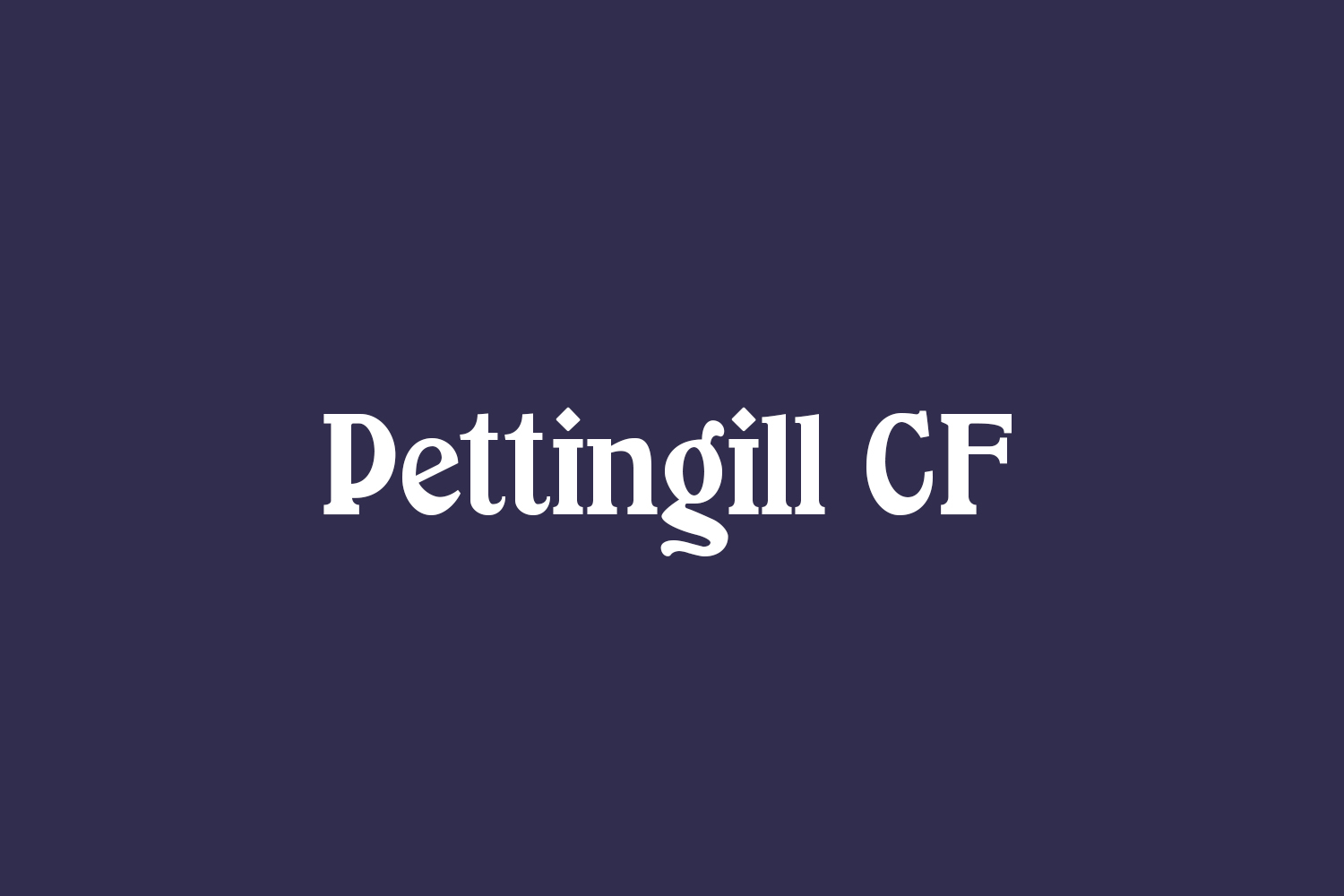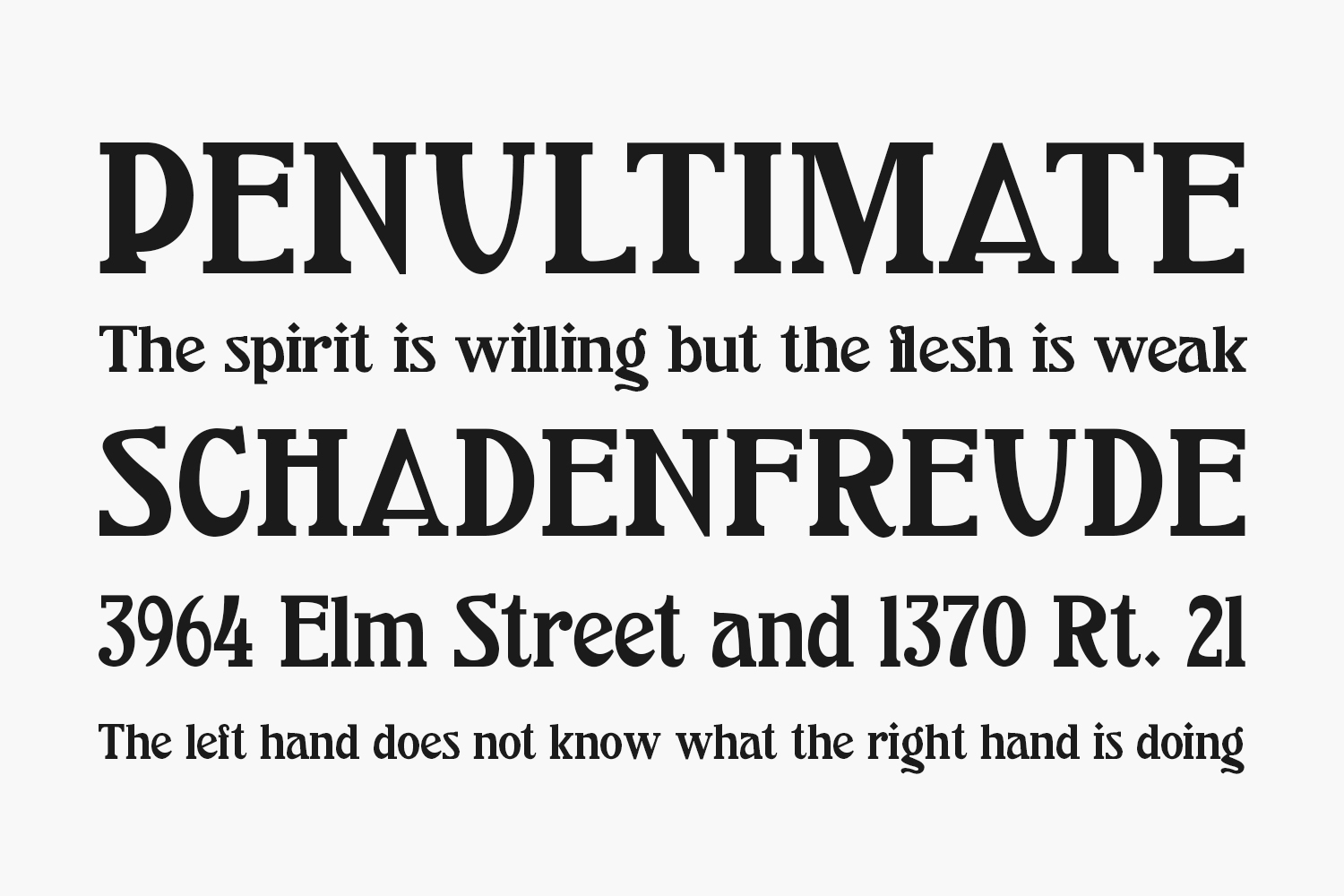
Pettingill CF Free Font is my revival, completely redrawn, of Arlington Old Style, a typeface I found in Pettingill Type Book (Pettingill & Co., 1901). This font is a bold serif font appropriate for posters, advertising, logos, headlines, signage, and greeting cards. Pettingill CF could also support a vintage-modern design and would be appropriate as a Secessionist font. Some of the glyph shapes are especially interesting. I find the “g” quite beautiful and the “a” elegant. The shape of the number 4 is interesting too.
Designed by Chuck Mountain